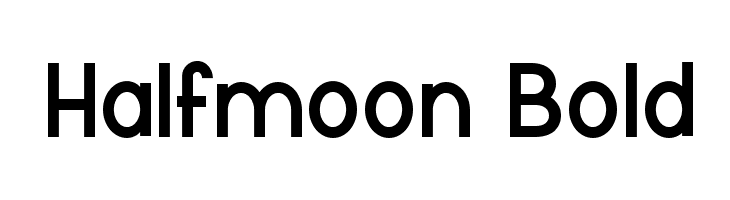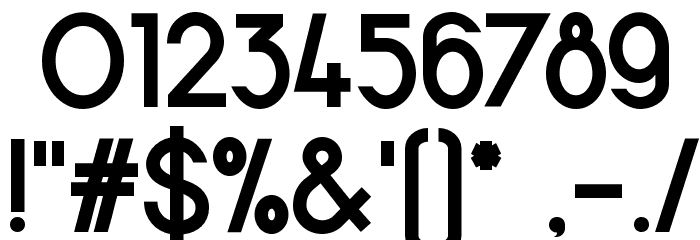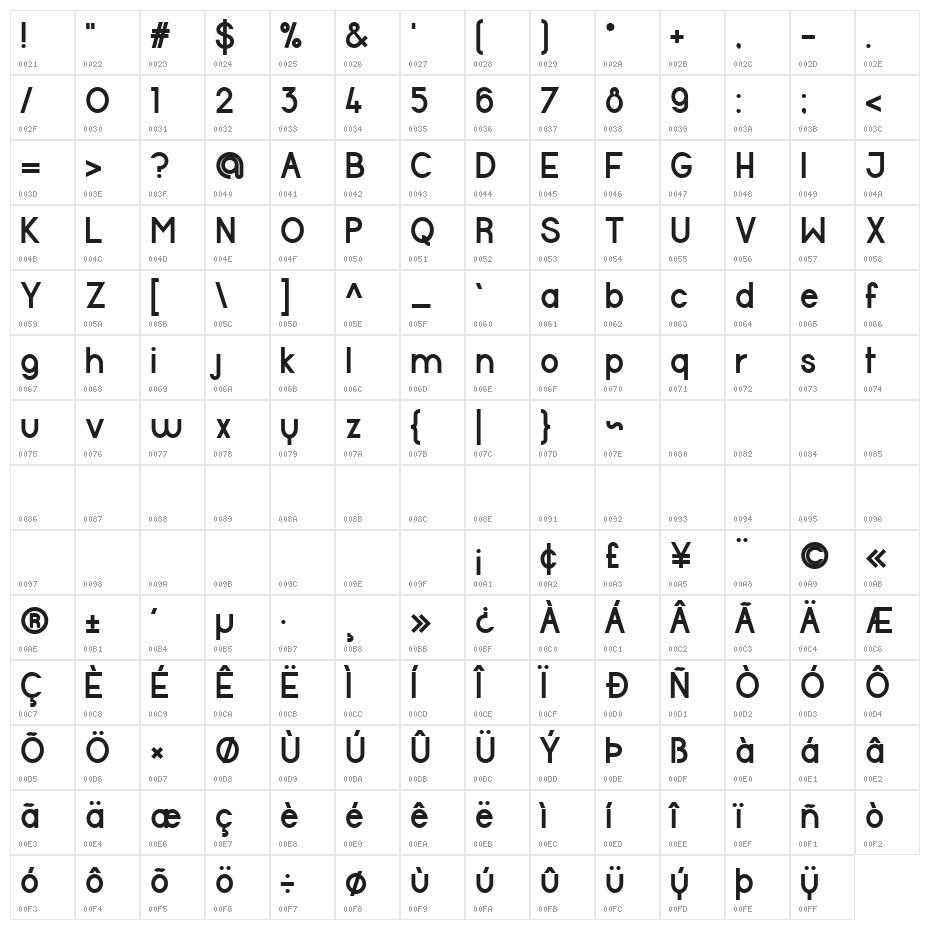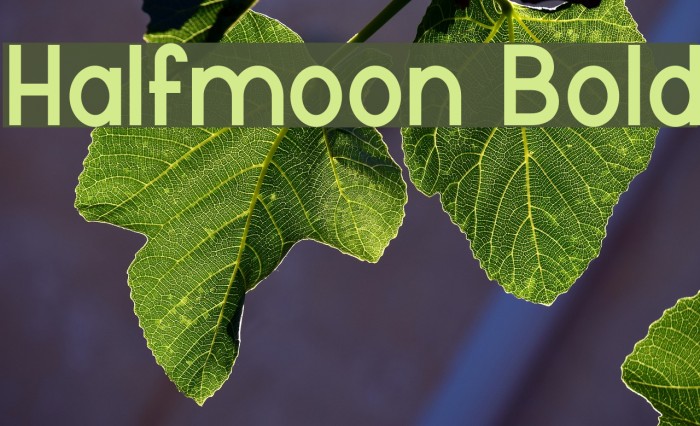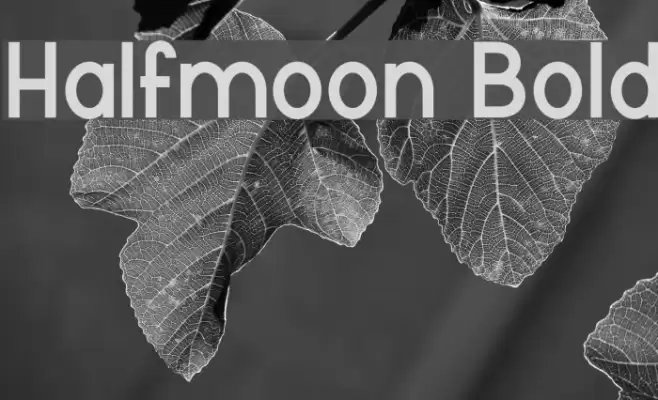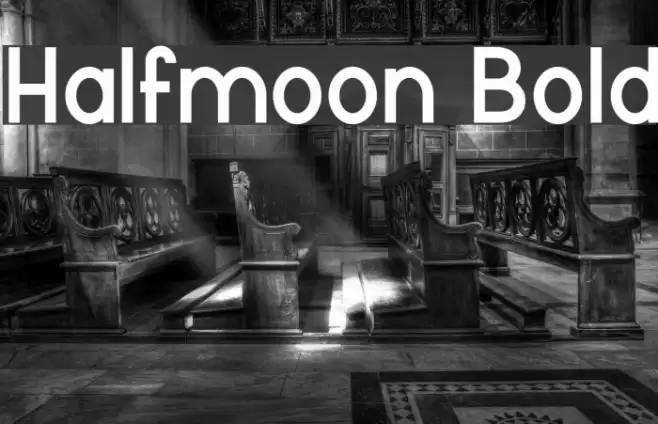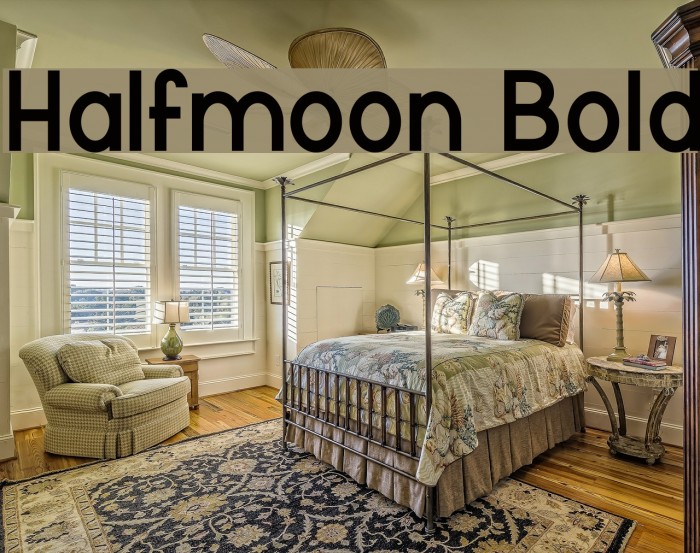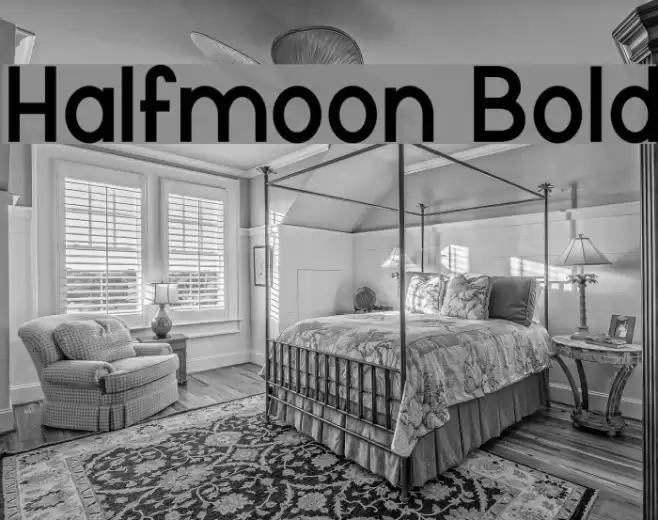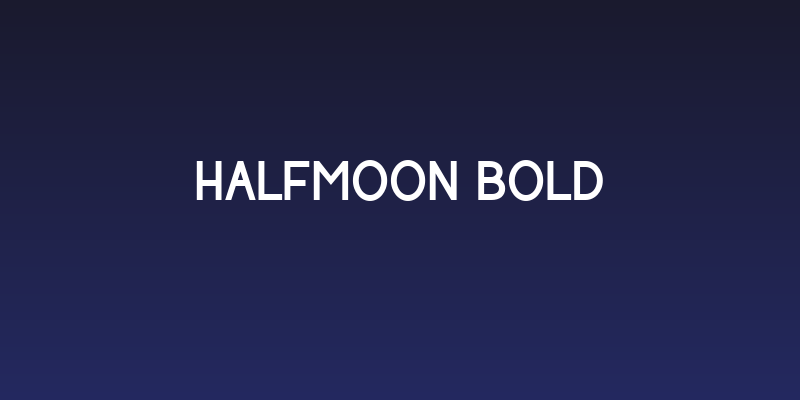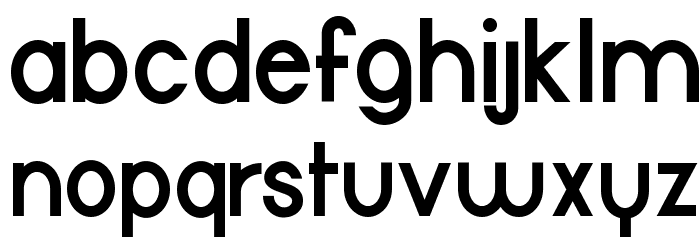
Halfmoon Bold Font
Halfmoon Bold Description
This font features a bold and modern sans-serif style with clean, geometric lines. The characters are evenly weighted, providing a uniform appearance that is both strong and approachable. The uppercase and lowercase letters maintain a consistent height, contributing to a balanced and harmonious look. The numerals are clear and legible, making them suitable for various applications. Special characters are well-defined, enhancing the font's versatility. Overall, this font exudes a contemporary feel, making it ideal for projects that require a bold yet straightforward typeface.